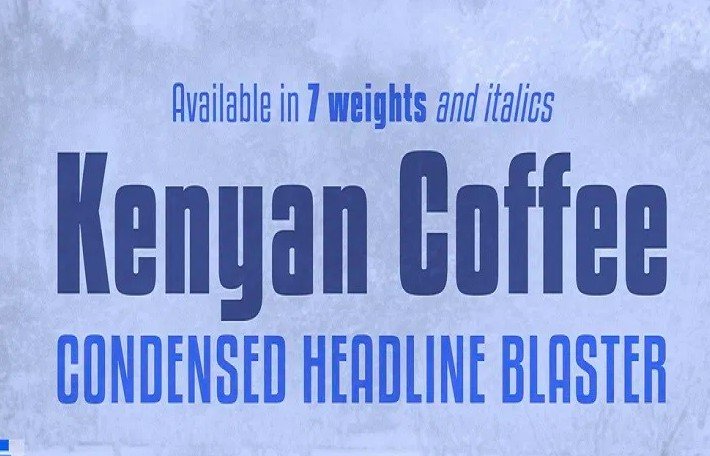
Kenyan Coffee Font is an excellent slim, blocky, and inspirational typeface created specifically for headlines. It includes 7 unique styles and italic.